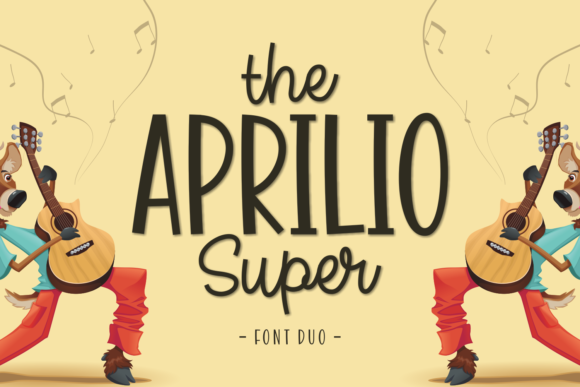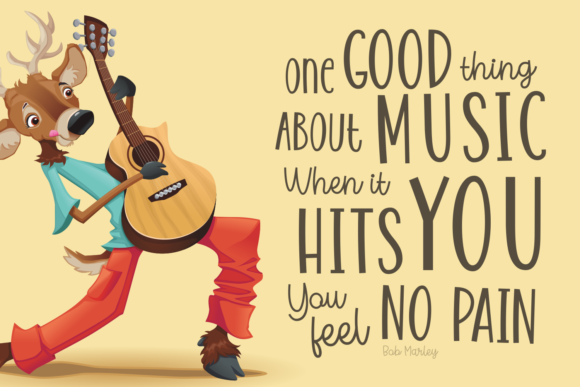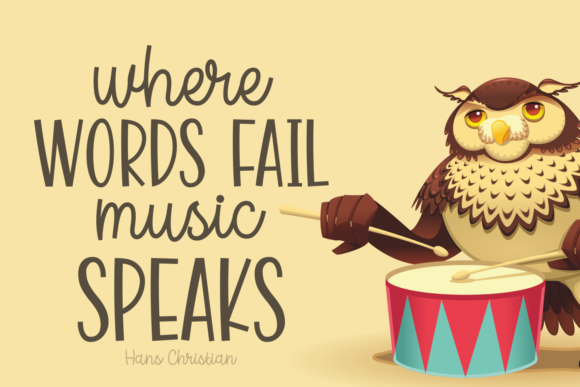
The Aprilio Super Font
About The Aprilio Super Font
The Aprilio Super is an amazing font. It includes 2 playful styles which can combined perfectly, giving you the opportunity to create multiple unique designs in an instant.